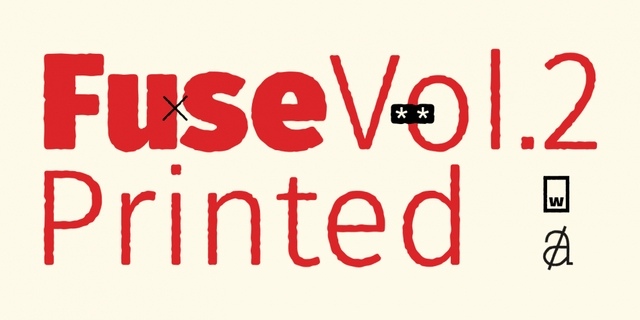
Fuse V.2 Printed Font
Fuse V.2 Printed Font is perfect for vintage poster designs, retro branding projects, distressed packaging, weathered signage systems, nostalgic marketing campaigns, and artisanal product labeling. This characterful typeface excels in craft brewery branding, vintage-inspired merchandise, rustic restaurant identities, and any application where authentic weathered texture and handcrafted authenticity create memorable visual experiences.
What makes Fuse V.2 Printed Font so exciting is its masterful recreation of authentic letterpress and vintage printing textures that transport viewers back to the golden age of handcrafted typography. The font features realistic ink bleeds, paper texture variations, and printing imperfections that create genuine vintage character. Its nostalgic appeal combines the charm of historical printing methods with modern functionality and readability.
Fuse V.2 Printed Font comes in a weathered family including Light, Regular, Medium, Bold, and Heavy weights. Each style features complete uppercase and lowercase character sets, vintage symbols, distressed numerals, and period-appropriate punctuation marks. The font family also includes multiple texture variations, printed alternates, and authentic ligatures that provide designers with extensive options for creating truly realistic vintage printing effects.
This captivating typeface transforms modern designs into authentic vintage masterpieces with remarkable historical accuracy. Fuse V.2 Printed Font Free Download provides designers and nostalgic brands with essential typography that captures the soul of traditional printing craftsmanship. Whether you're developing retro brand identities, creating vintage-inspired packaging, or designing materials for artisanal businesses, this font delivers authentic historical character with professional quality.
The font's vintage charm makes it particularly effective for craft breweries, artisanal food producers, vintage fashion brands, and traditional craftspeople. Its excellent legibility ensures that Fuse V.2 Printed Font maintains clarity despite its weathered appearance while preserving authentic vintage character. The font's ability to evoke nostalgia and handcrafted quality makes it an invaluable tool for any project seeking to communicate genuine heritage and connect with audiences through the timeless appeal of vintage printing aesthetics.